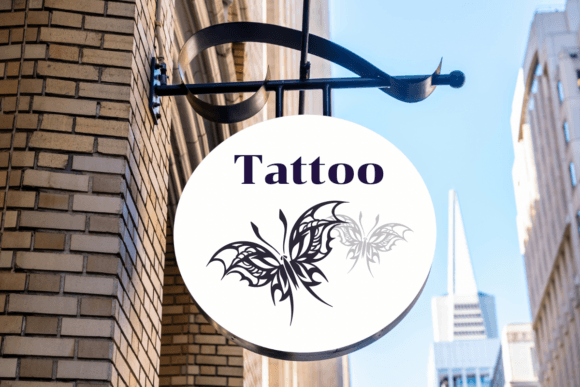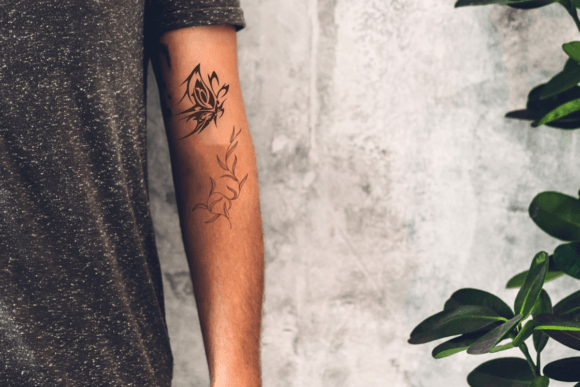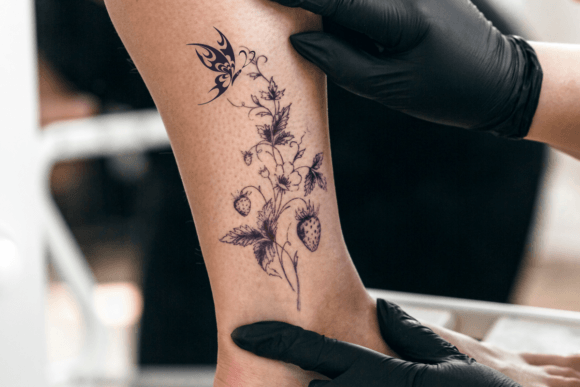
Designing with Delicate Beauty: The Allure of Butterfly Tattoo Font
Have you ever sat down with a sketchbook and a pen, trying to capture the whimsy of a butterfly’s wings on paper? The delicate dance of lines, the subtle play of colors, and the ethereal feeling that comes with creating something so fleeting yet enduring? For many designers and artists, this moment of creative inspiration is what drives them to push the boundaries of their craft.
Enter the Butterfly Tattoo Font, a dingbat font that brings the beauty of butterflies to your designs with ease. This font features simple, clean illustrations of butterflies that can be arranged in various patterns and sizes to create unique, nature-inspired tattoos or artwork. Whether you’re a seasoned designer or an amateur artist, the Butterfly Tattoo Font offers a valuable tool for incorporating the charm of butterflies into your work.
With its versatility and ease of use, the Butterfly Tattoo Font is an essential addition to any designer’s toolkit. Its simple yet effective design makes it perfect for a wide range of projects, from tattoos and artwork to digital designs and even stationery.
Key Features of Butterfly Tattoo Font
- Font Size: The font is designed to be highly legible at various sizes, ranging from 8pt to 72pt, making it suitable for a wide range of tattoo designs and applications.
- Resolution: The font is optimized for high-resolution displays, ensuring crisp and clear text at resolutions up to 300 DPI.
- Unique Characteristics: The font features a distinctive, hand-drawn aesthetic with intricate details and subtle texture, giving it a unique and eye-catching appearance.
- Style Variations: The font includes multiple style variations, including bold, italic, and outline styles, allowing designers to create a wide range of effects and moods.
Designer Review: Butterfly Tattoo Font
As a designer, I was excited to dive into the Butterfly Tattoo Font. Here’s my honest take:
- Unique aesthetic: The font has a beautiful, hand-drawn feel that’s perfect for tattoo-inspired designs.
- Expressive flourishes: The font’s decorative elements, like the curved tails and flourishes, add a touch of whimsy and personality.
- Wide language support: I was pleased to see that the font includes support for a wide range of languages, making it versatile for various design projects.
- Limited readability: While the font is beautiful, its decorative elements can make it difficult to read at smaller sizes.
- No bold or italic styles: The font is only available in a single style, which can limit its use in certain design contexts.
- Not ideal for body text: Due to its decorative nature, the font is better suited for headlines and titles rather than body text.
Overall, I think the Butterfly Tattoo Font is a beautiful addition to any designer’s toolkit. While it may have some limitations, its unique aesthetic and expressive flourishes make it a great choice for projects that require a touch of personality and whimsy.
For a vintage look, pair the Butterfly Tattoo Font with a distressed or watercolor effect. Use it for event invitations, wedding stationery, or any design that requires a touch of elegance and whimsy. To get the most out of the font, experiment with different font sizes, colors, and layering techniques.